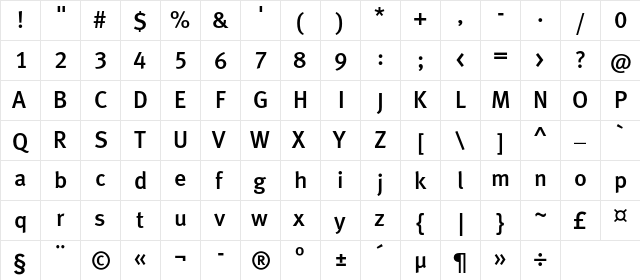
MetaMediumLFC Regular
Design Context for MetaMediumLFC Typeface
MetaMediumLFC offers clean, dependable letterforms without strong stylistic allegiance, making it a practical choice for designers who need flexibility.
Pro Tip: Use MetaMediumLFC in both headline and body roles to test its range before committing to a single application.